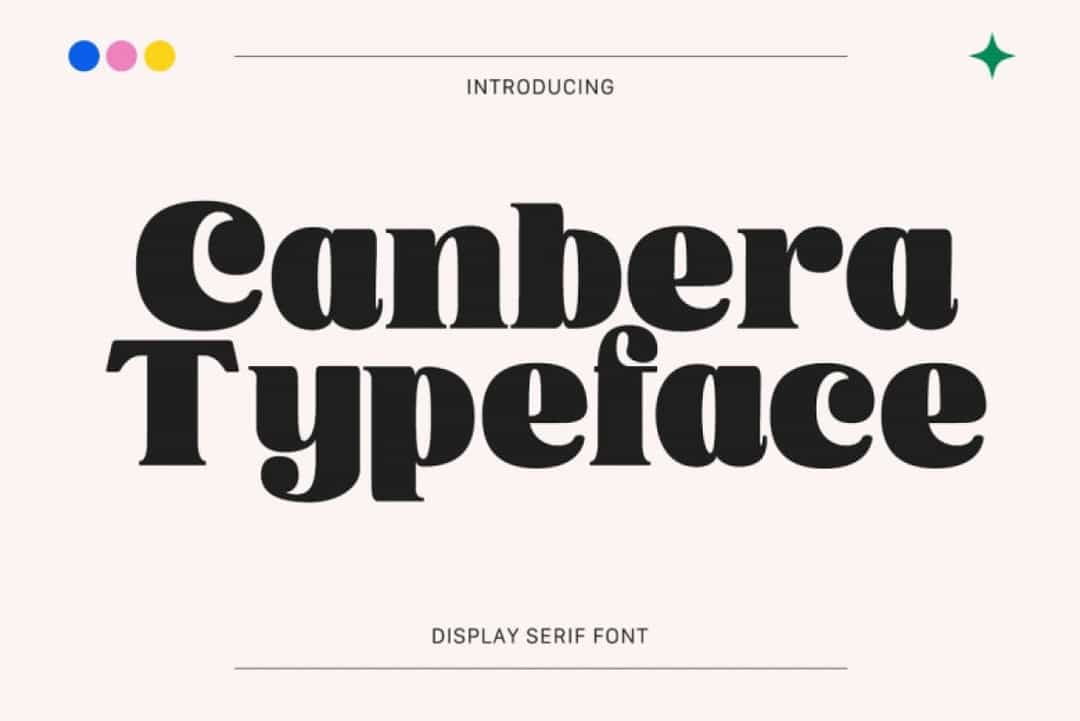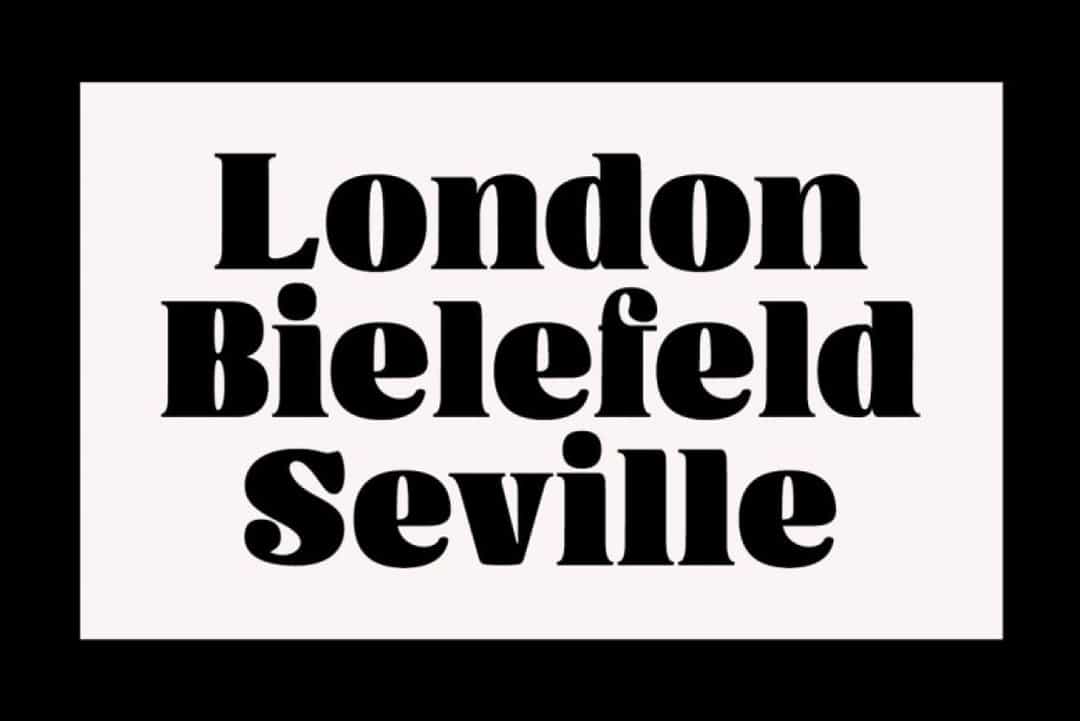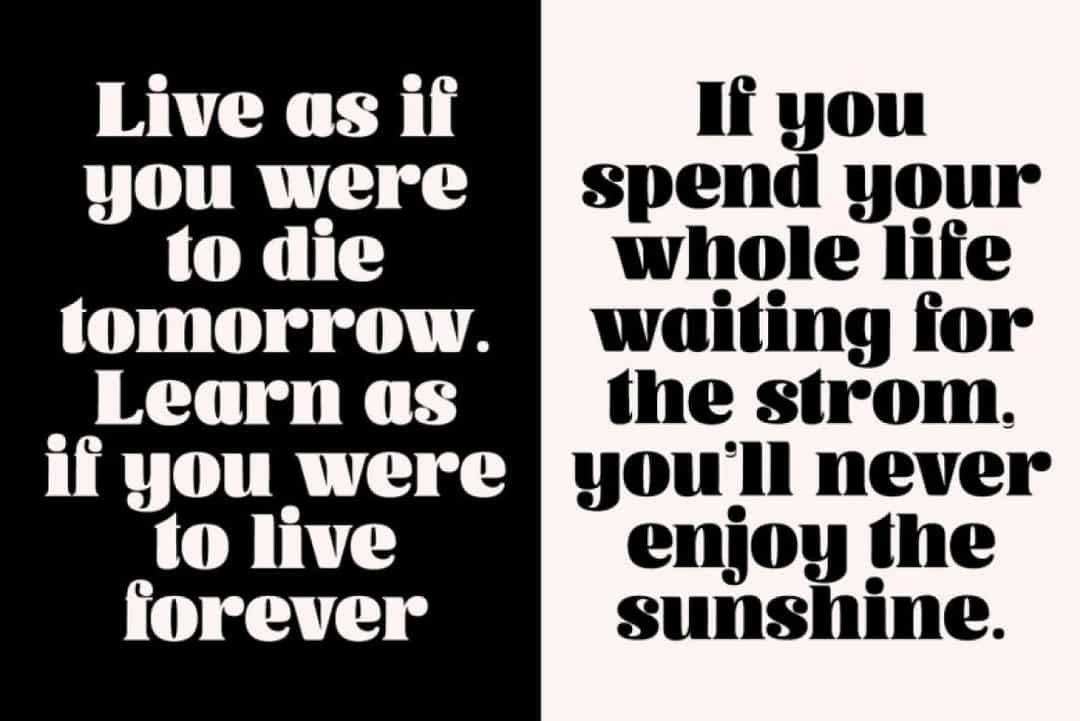
Canbera is an older style serif font featuring colorful, round shapes with high contrast designs and retro elements, perfect for display logotypes, headline text and more. PUA encoded, it allows easy access to its full array of glyphs, swashes and characters!